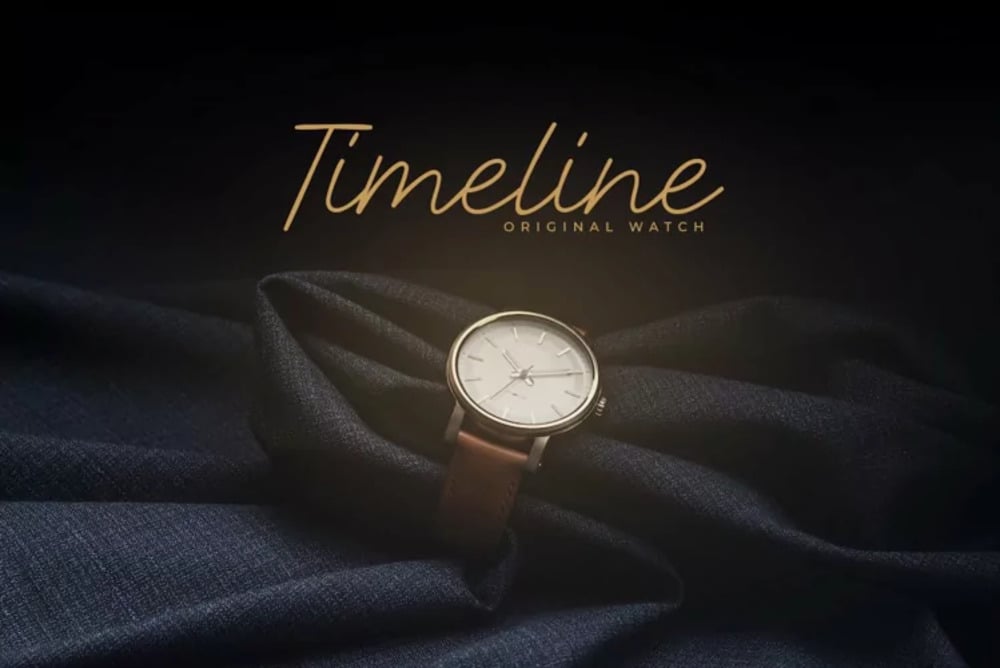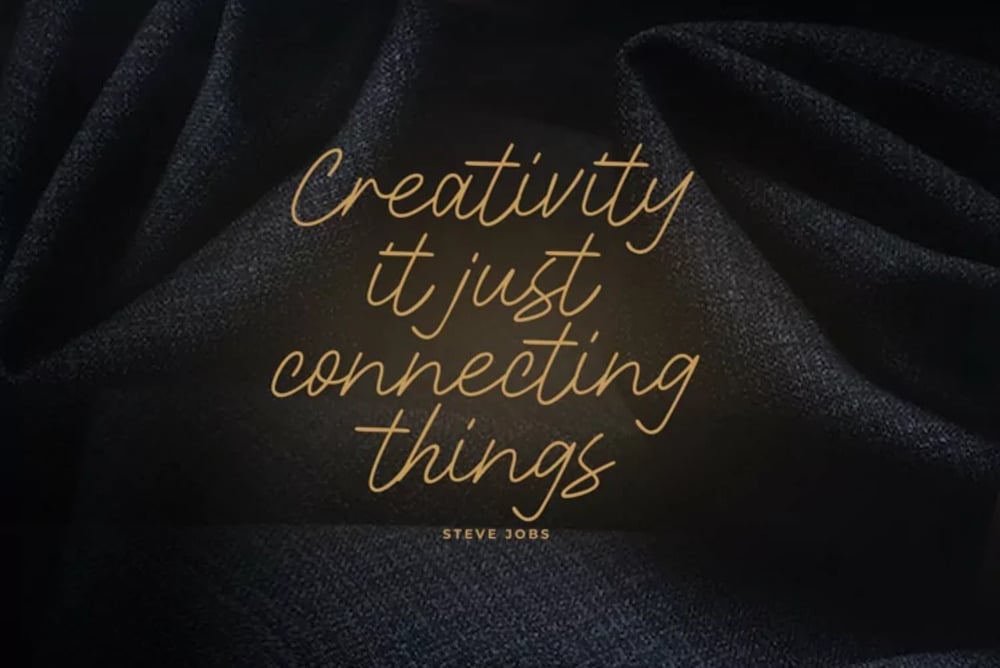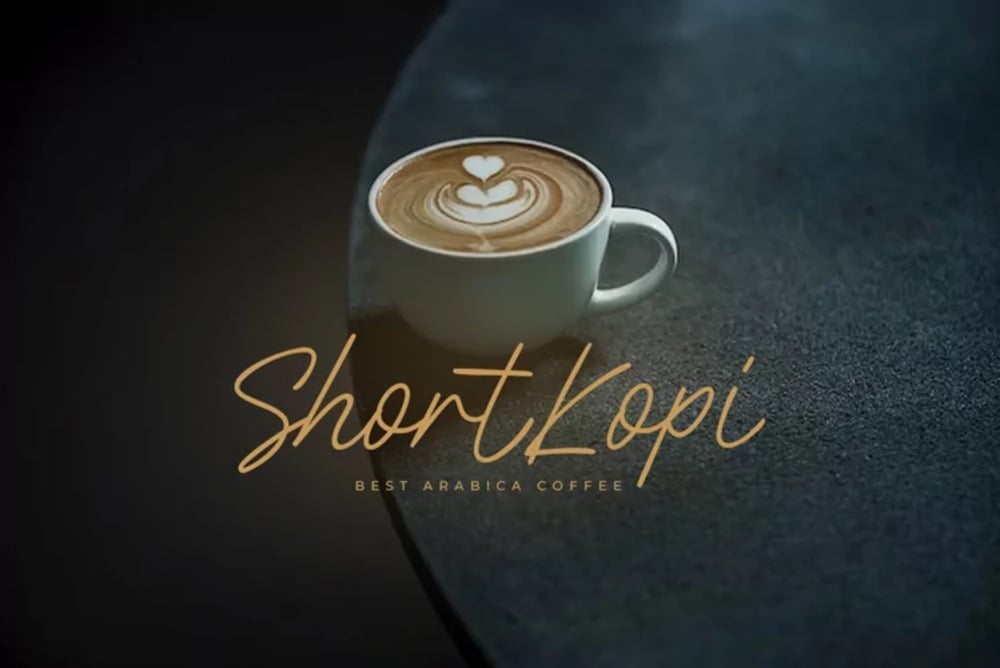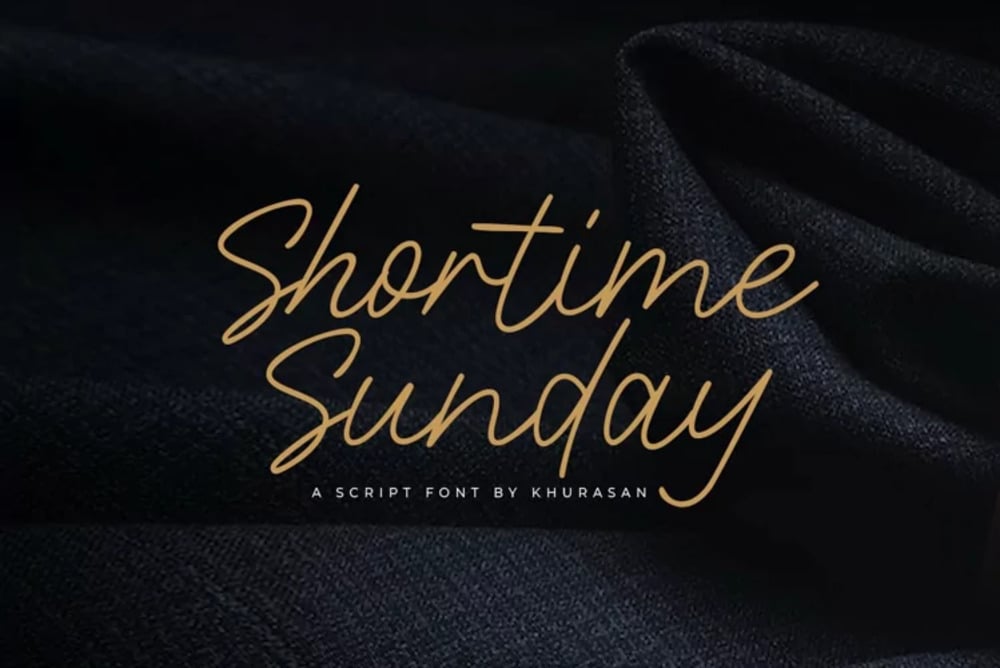
Shortime Sunday font
Shortime Sunday is a casual and friendly handwritten font with a touch of elegance. Its flowing script style is perfect for adding a personal touch to invitations, social media posts, and branding materials. With its warm and inviting feel, Shortime Sunday is sure to make your projects stand out.